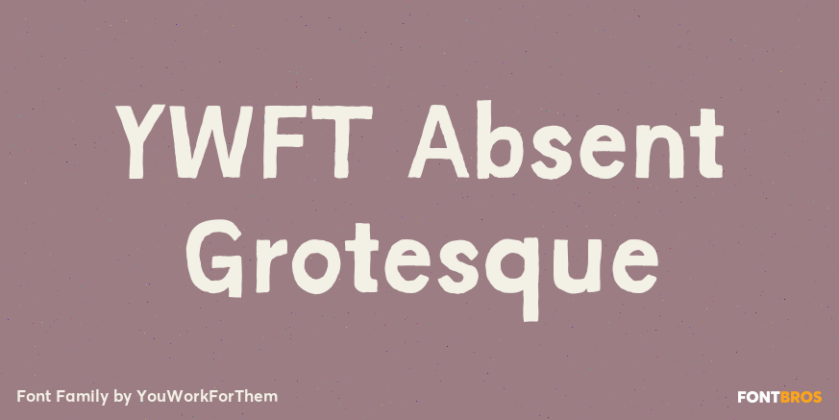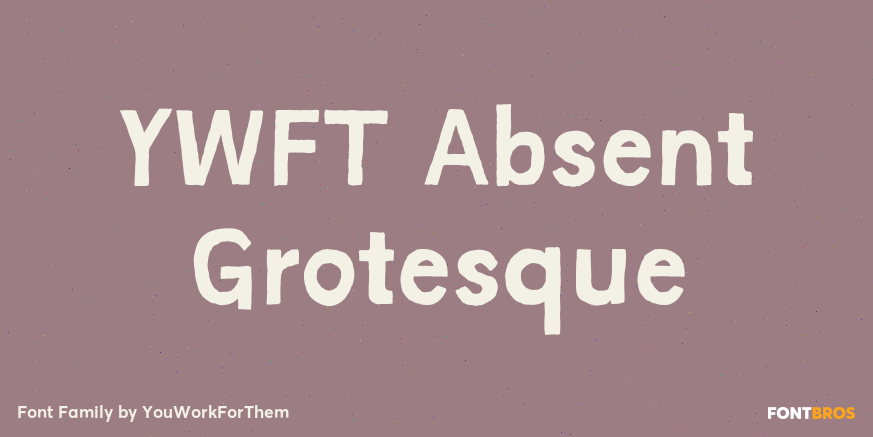
About YWFT Absent Grotesque
In these over-Photoshopped times, a little imperfection can make your work stand out and excel. YWFT Absent Grotesque was created to be an imperfect typeface, exploring ideas found in Univers and Helvetica without the serious attitude and over-marketing.…